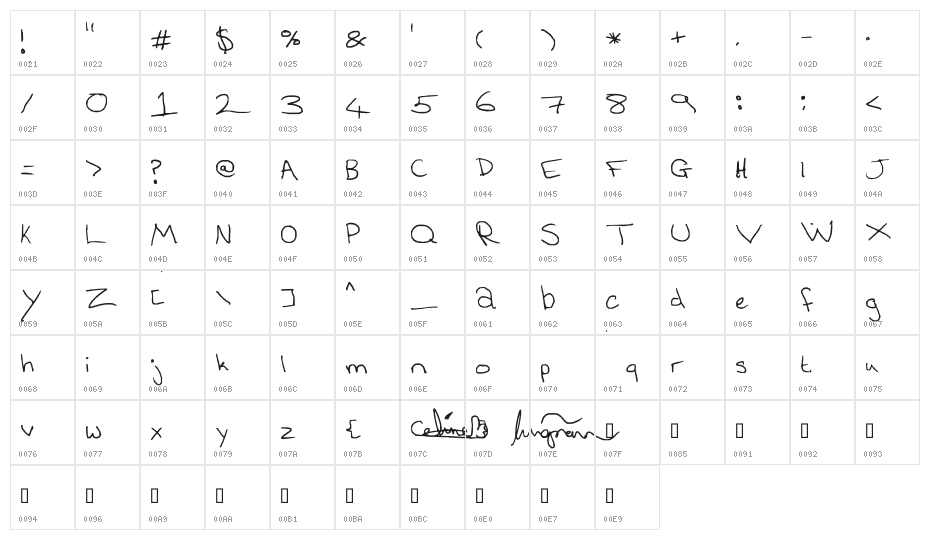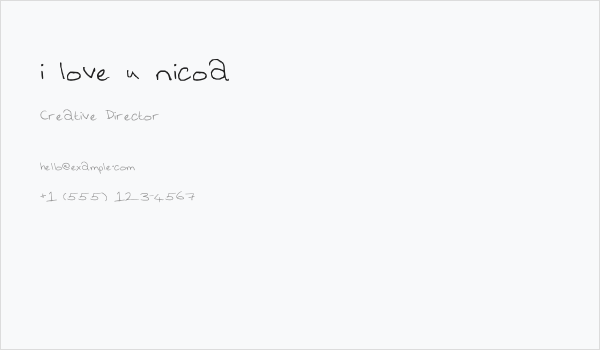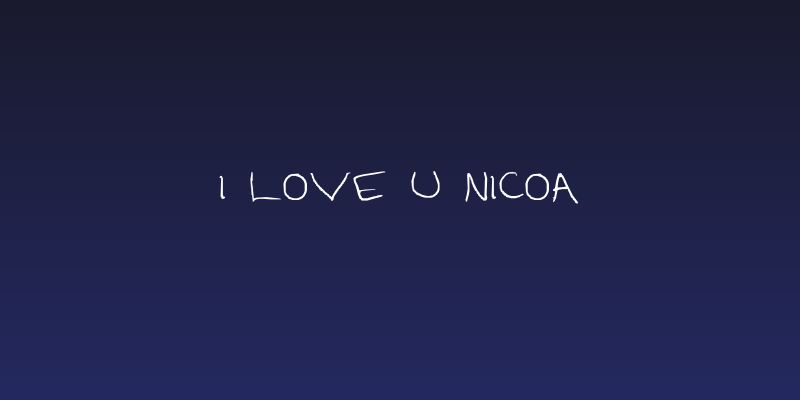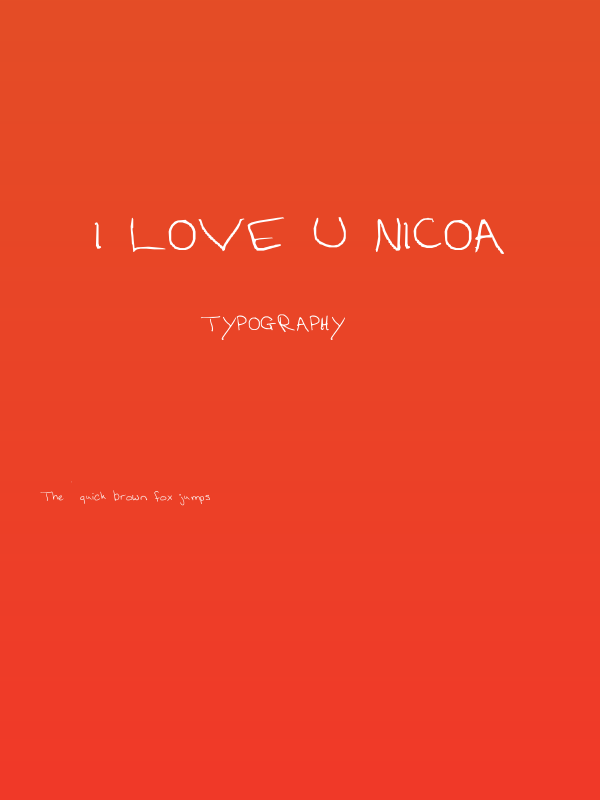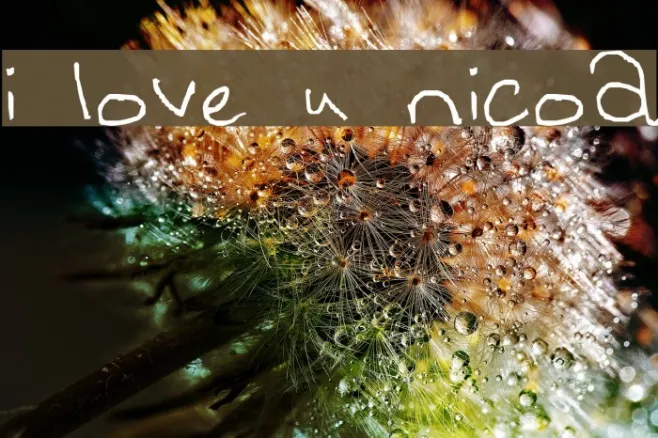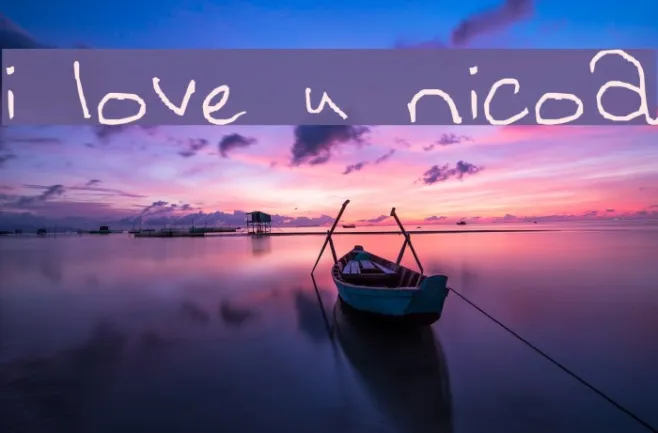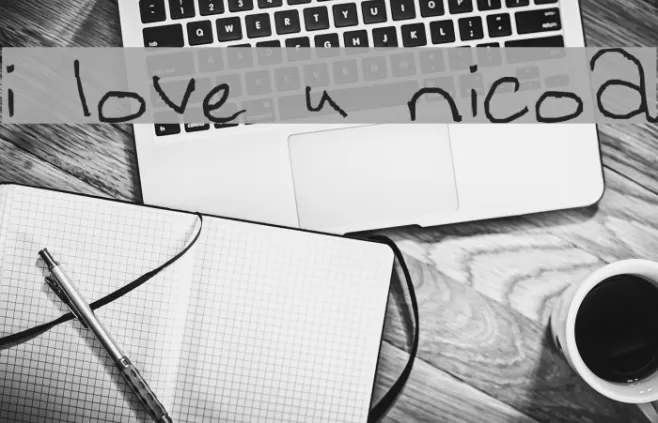
i love u nicoa Font
i love u nicoa Description
This font exhibits a playful and casual handwritten style, characterized by its uneven strokes and slightly irregular letterforms. The uppercase letters are bold and prominent, while the lowercase letters maintain a consistent flow with a touch of whimsy. The numbers are clear and legible, matching the overall informal aesthetic. Special characters are creatively integrated, adding to the font's charm. This font's unique personality makes it suitable for projects that require a personal touch or a sense of informality.
| Overall Style | Casual |
| Use Case | Headlines, Informal text, Creative projects |
| Proposed Projects | Ideal for greeting cards, personal blogs, children's books, and casual branding. |